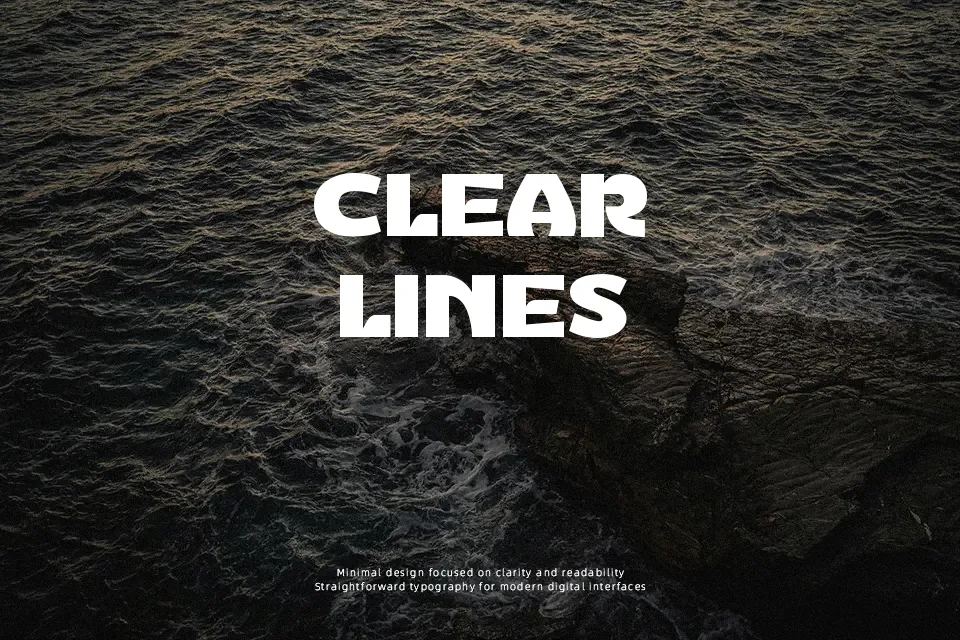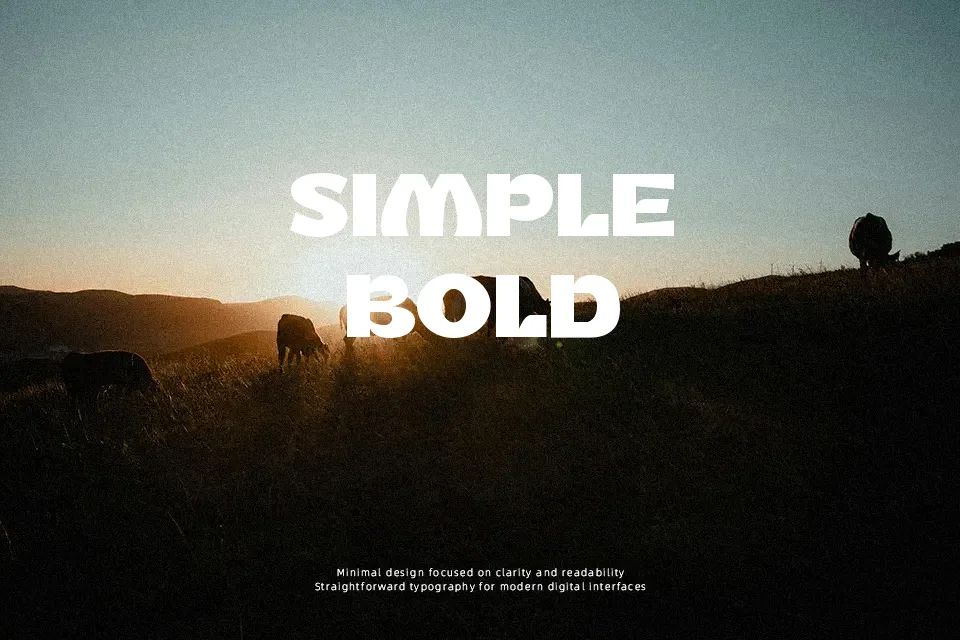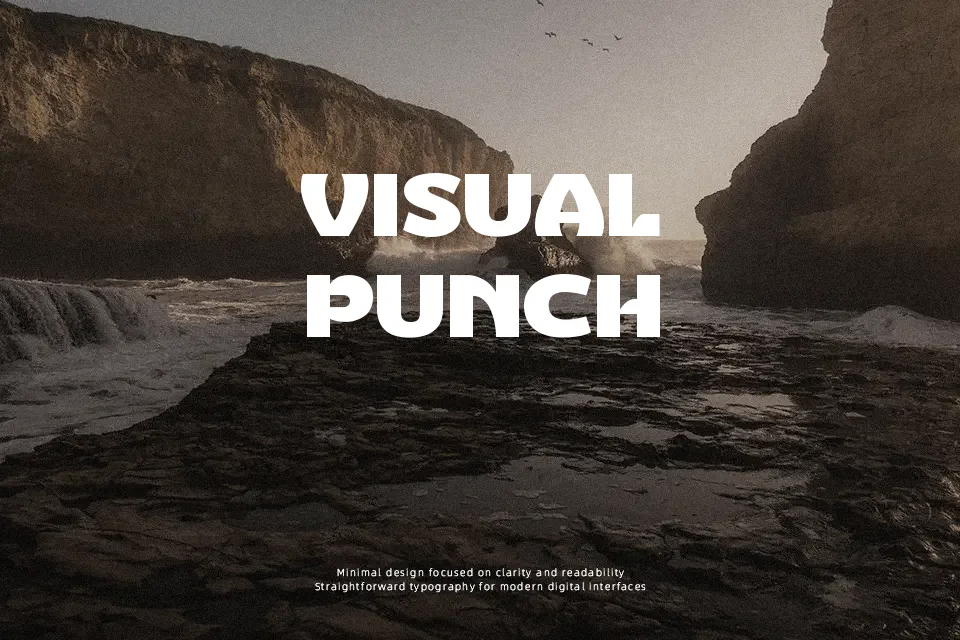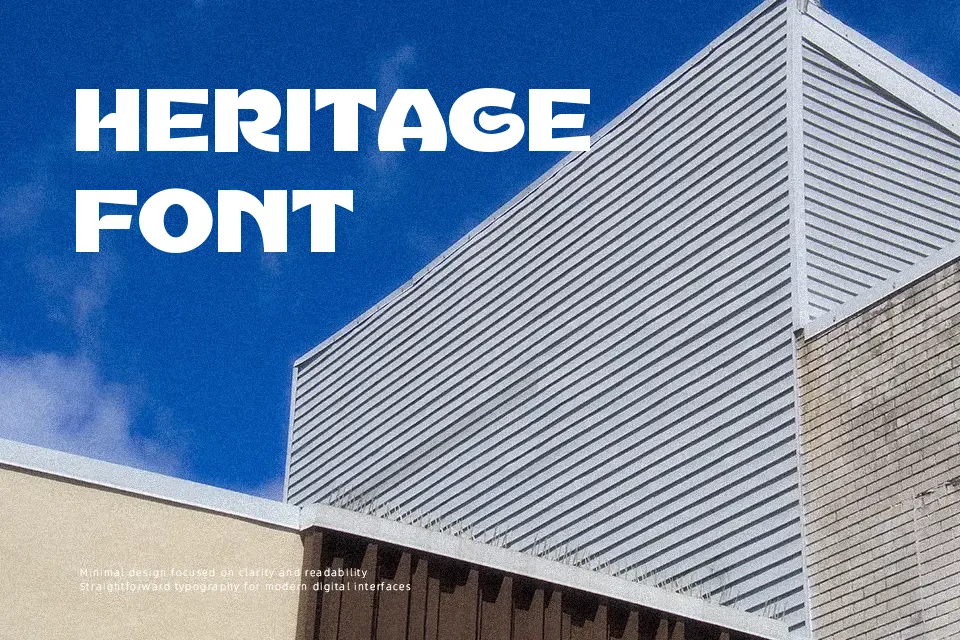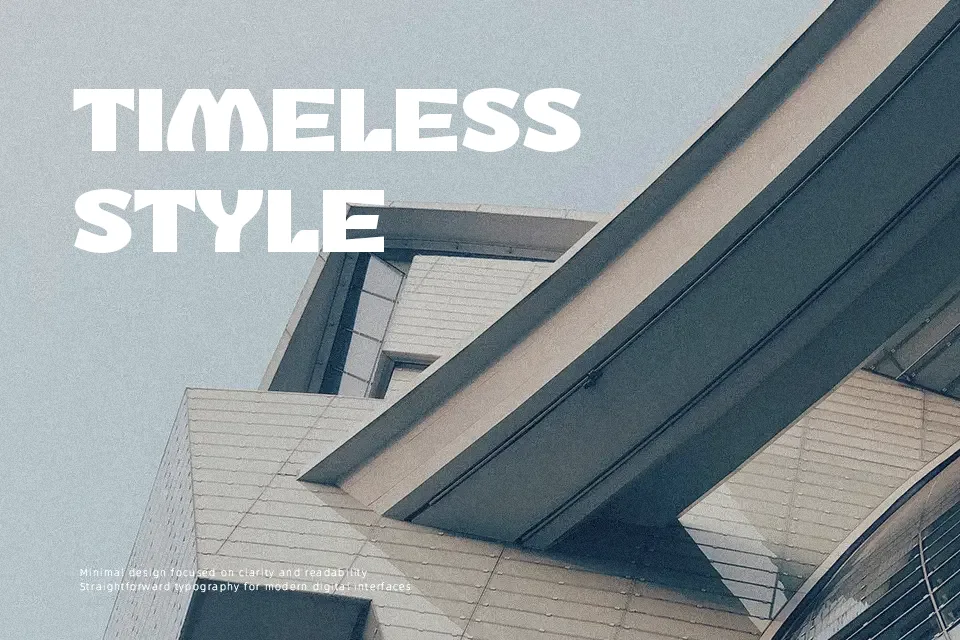
Retroguard Font
Retroguard Font immediately establishes a strong nostalgic presence with its bold, expanded letterforms and distinctive wavy strokes. The geometric structure combined with smooth, heavy curves provides excellent visibility in large display scenarios like vintage apparel graphics, coffee shop branding, and music festival posters. A notable strength is how the balanced spacing helps maintain clarity in larger headlines without feeling crowded. However, the heavy weight and decorative wave elements become a limitation at smaller sizes. The dense forms reduce comfort during extended reading, making this design less suitable for body text or dense editorial layouts. Overall, the typeface performs exceptionally well when used sparingly to inject a playful aesthetic into bold headline applications.
Best For: vintage food packaging, music festival posters, coffee shop branding, retro apparel graphics
Not Ideal For: long paragraph text, dense editorial layouts, corporate reports, small interface labels
Perfect for branding, headline, and packaging, with a bold and decorative style.